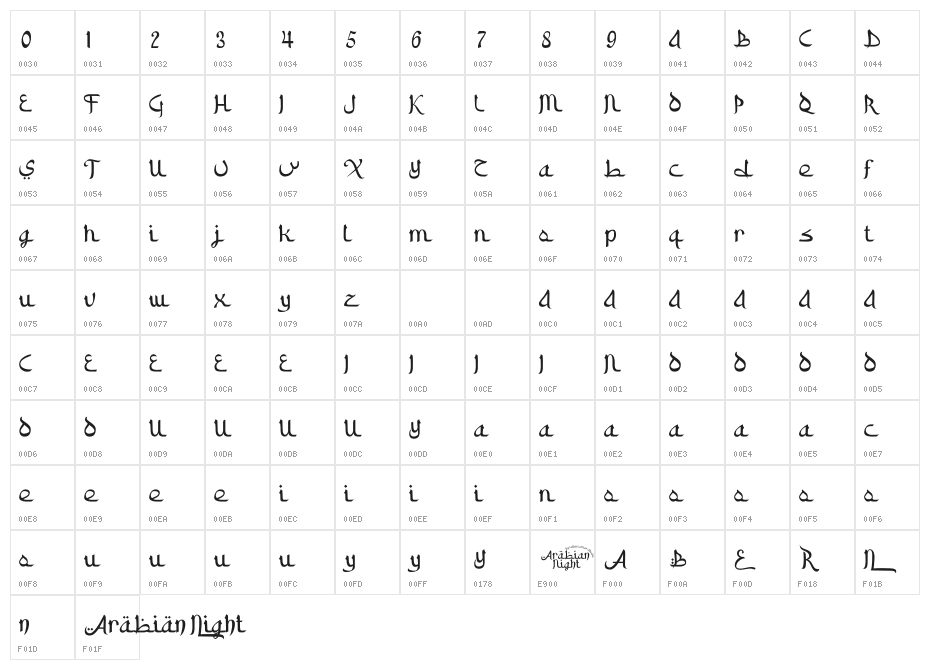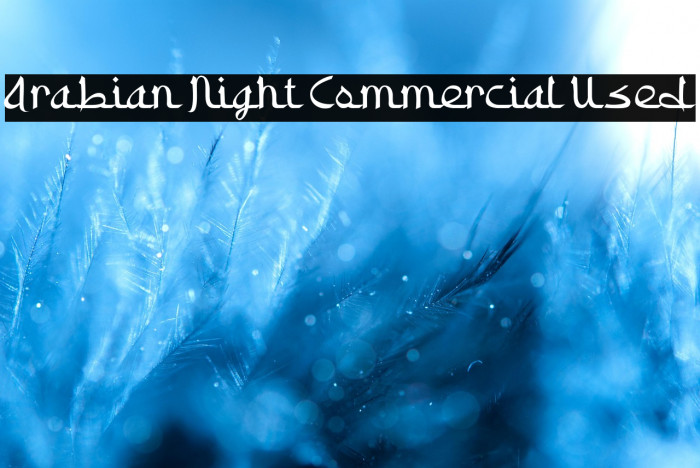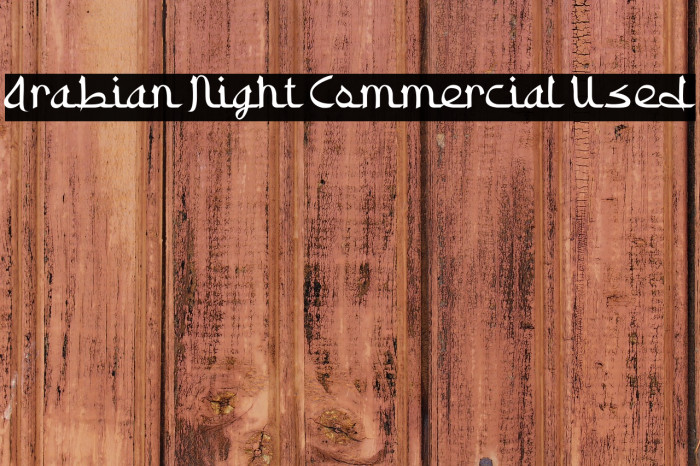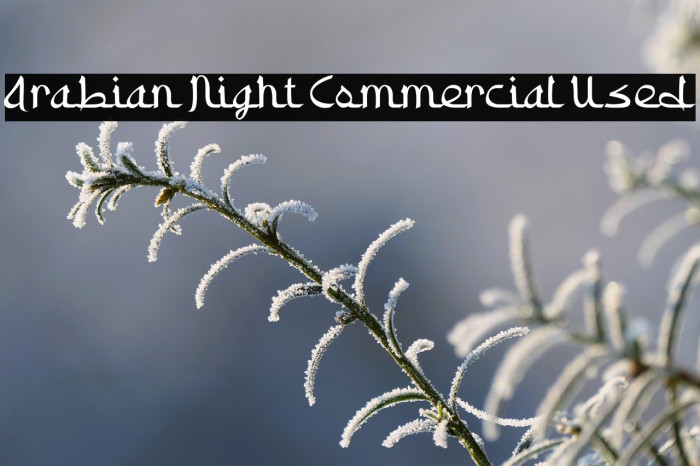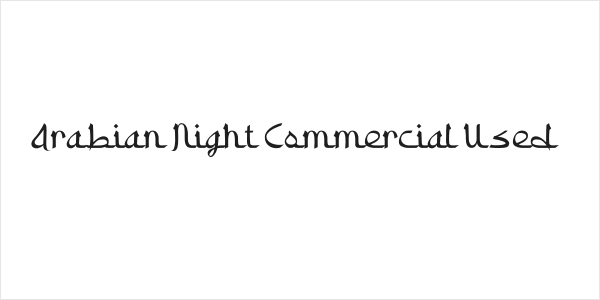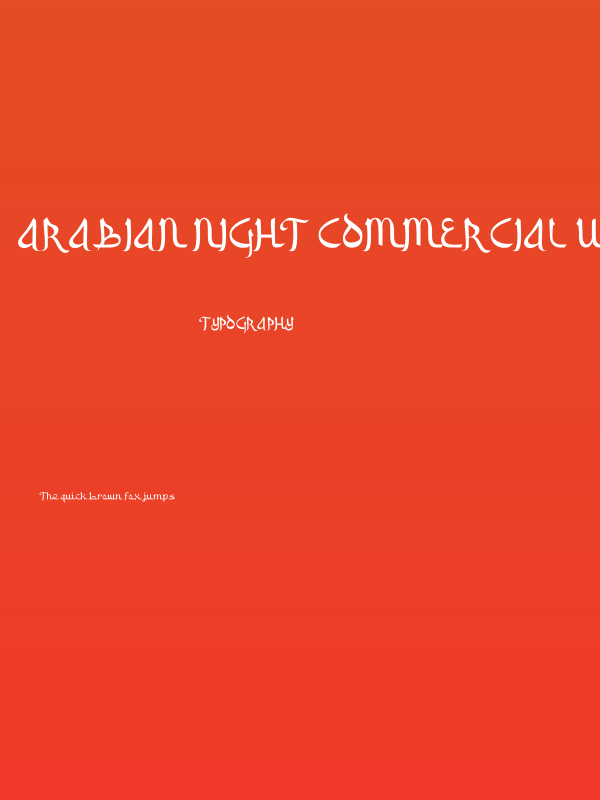
Arabian Night Commercial Used Font
Arabian Night Commercial Used Description
This font features a unique blend of traditional and modern elements, characterized by its flowing, calligraphic style. The letters have a distinct, artistic flair with sharp, angular strokes and smooth curves, reminiscent of Middle Eastern script influences. The uppercase letters are bold and commanding, while the lowercase letters maintain a consistent, elegant flow. The numerals are stylized to match the overall theme, providing a cohesive look. This font is ideal for projects that require a touch of exotic elegance and cultural richness.
| Proposed Projects | Ideal for branding, invitations, cultural event posters, and decorative headings. |